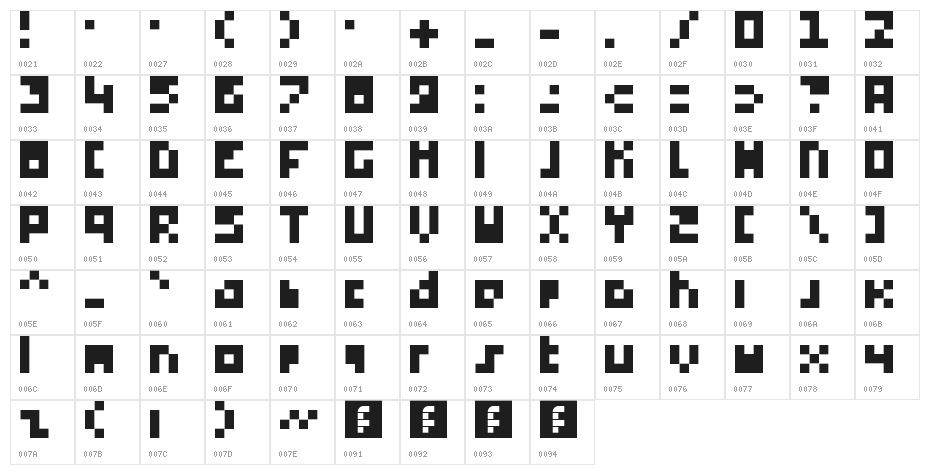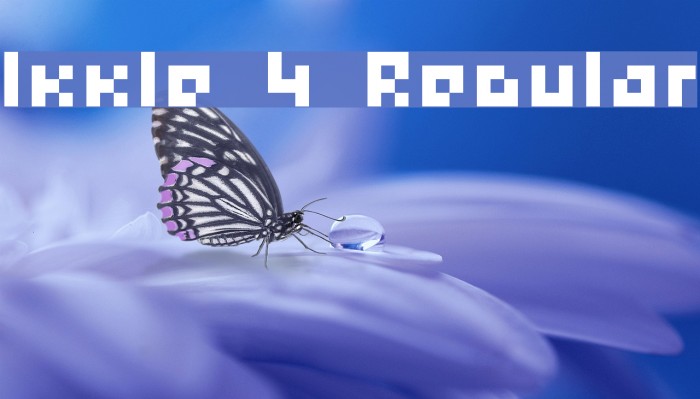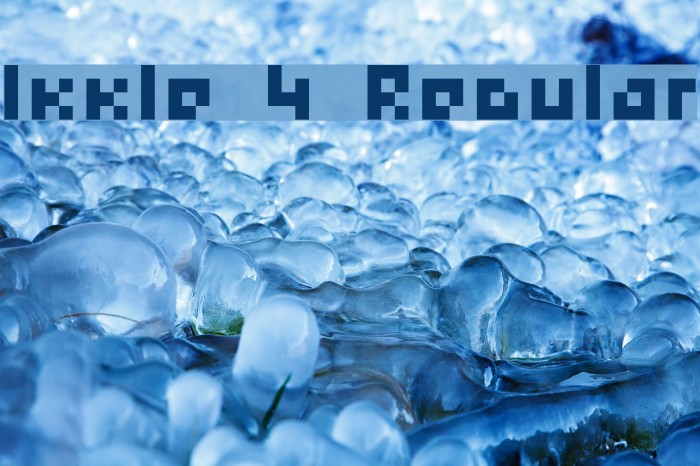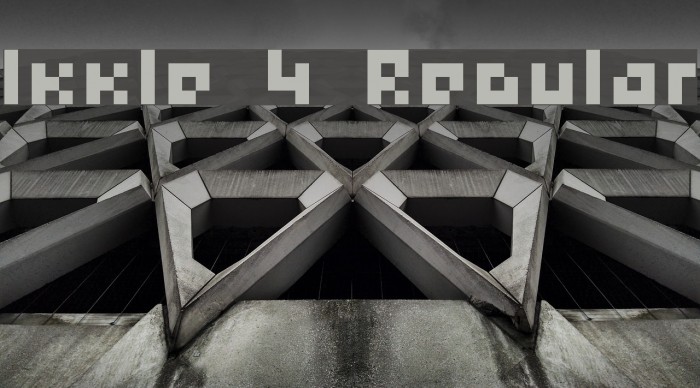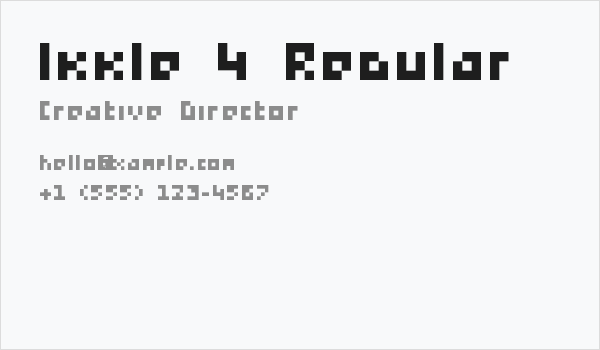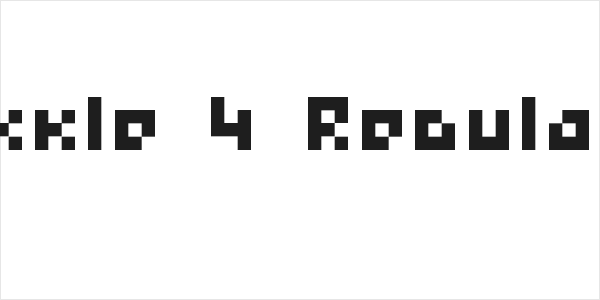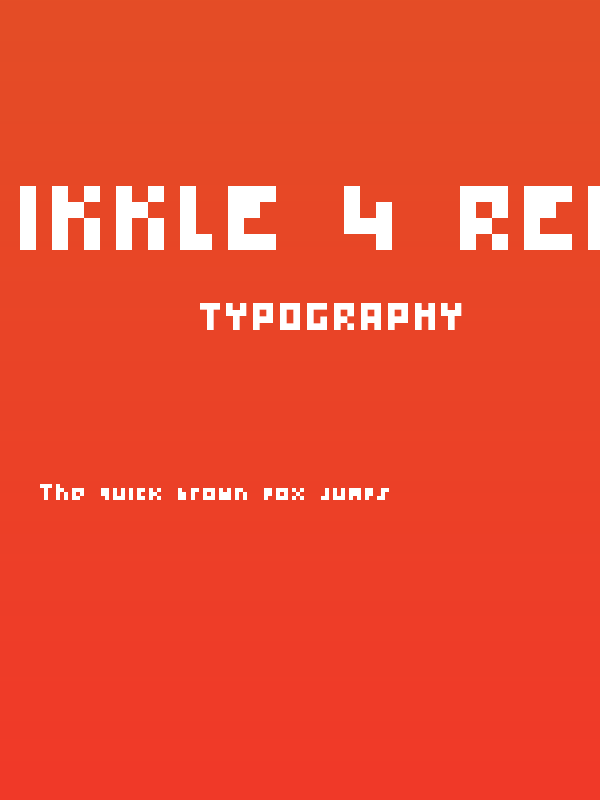
Ikkle 4 Regular Font
Ikkle 4 Regular Description
This font exhibits a pixelated, blocky design reminiscent of early digital or video game aesthetics. Each character is constructed with uniform square blocks, giving it a distinctly retro and geometric appearance. The uppercase and lowercase letters maintain a consistent height, contributing to a monospaced feel, although the font is not strictly monospaced. The numerals and special characters follow the same pixelated style, ensuring uniformity across all glyphs. This design choice emphasizes simplicity and clarity, making it suitable for digital displays or projects that aim to evoke nostalgia for classic computing or gaming eras.
| Use Case | Headlines, Logos, Digital displays |
| Proposed Projects | Ideal for video game design, retro-themed graphics, digital art projects, or any creative work that seeks to capture the essence of early digital technology. |